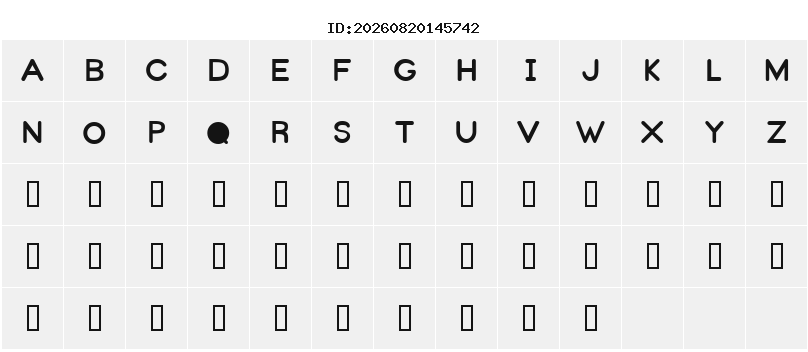
• Font Name: Sezame
• Font Style: Caps
• Full Font Name: Sezame Caps
Sezame.ttf is a modern, elegant sans-serif font designed for ultimate readability and visual harmony. Perfect for branding, headlines, web design, and print materials.